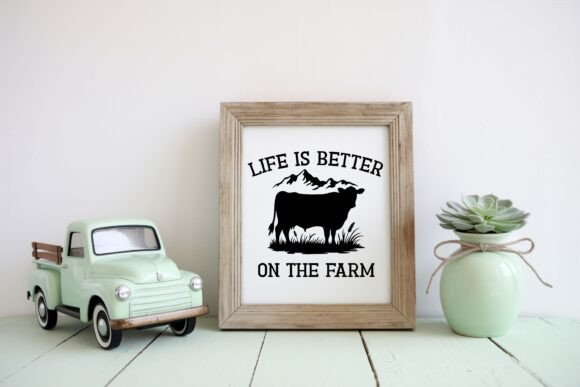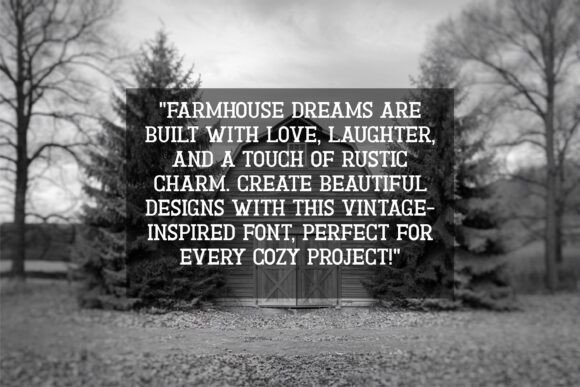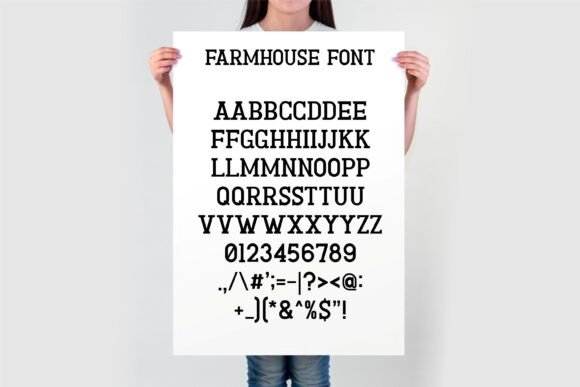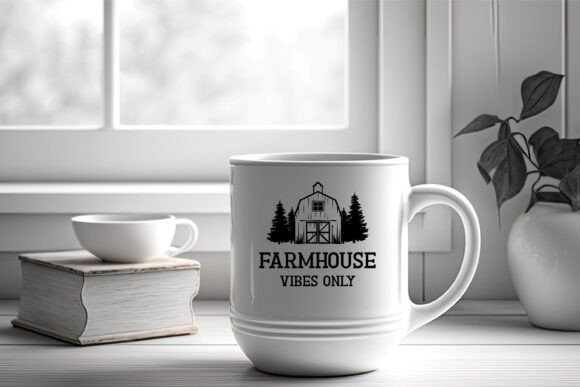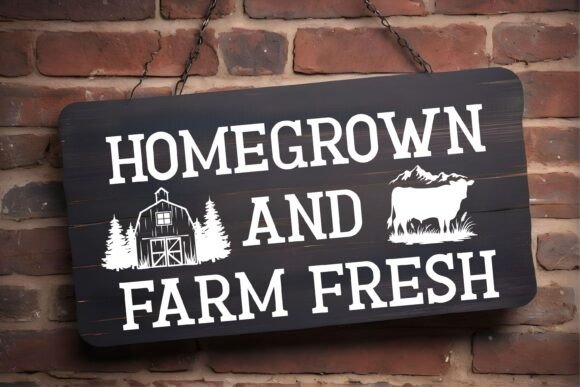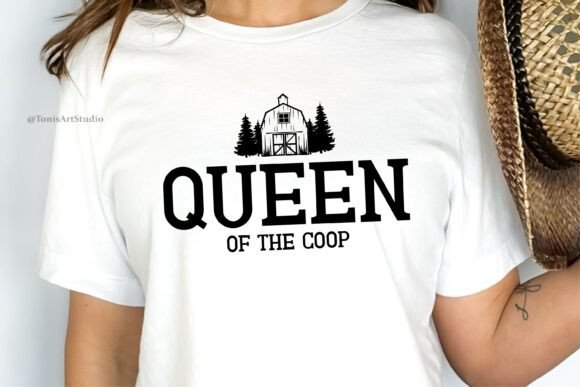
Introducing Farmhouse Vintage Font: A Timeless Rustic Serif Font
Are you looking for a font that exudes rustic charm and timeless elegance? Look no further than the Farmhouse Vintage Font! This beautiful font is perfect for designers and crafters who want to add a touch of country charm to their projects. In this article, we’ll take a closer look at the Farmhouse Vintage Font, its features, and the various ways you can use it to create stunning designs.
What is Farmhouse Vintage Font?
Farmhouse Vintage Font is a rustic serif font that is reminiscent of traditional farmhouse signs and vintage advertisements. Its classic design makes it perfect for a wide range of projects, from home decor to party decorations. The font is available in various formats, including OTF, TTF, SVG, DXF, EPS, and PDF, making it versatile and easy to use.
Key Features of Farmhouse Vintage Font
- Timeless Design: The Farmhouse Vintage Font features a classic design that is both rustic and elegant.
- Perfect for Various Projects: The Farmhouse Vintage Font is ideal for creating t-shirts, mugs, logos, posters, planner prints, birthday cards, wall decals, car decals, stickers, wedding invitations, birthday party decorations, iron-ons, print nâ cuts, and more!
Uses for Farmhouse Vintage Font
The Farmhouse Vintage Font is incredibly versatile and can be used for a wide range of projects, including:
- T-Shirts and Apparel: Create custom t-shirts, hoodies, and other apparel with the Farmhouse Vintage Font.
- Mugs and Drinkware: Add a touch of rustic charm to mugs, tumblers, and other drinkware.
- Signs and Posters: Create beautiful signs and posters for your home, business, or events.
- Party Decorations: Use the Farmhouse Vintage Font to create custom party decorations, such as banners, garlands, and more.
- Wedding Invitations: Add a touch of elegance to your wedding invitations and save-the-date cards.
- Iron-Ons and Vinyl Decals: Create custom iron-ons and vinyl decals for your favorite clothing and accessories.
Why Choose Farmhouse Vintage Font?
There are many reasons why you should choose the Farmhouse Vintage Font for your next project. Here are just a few:
- Unique and Timeless Design: The Farmhouse Vintage Font features a unique and timeless design that’s sure to stand out.
- Versatile: The font can be used for a wide range of projects, from home decor to party decorations.
In conclusion, the Farmhouse Vintage Font is a beautiful and versatile font that’s perfect for designers and crafters who want to add a touch of rustic charm to their projects. With its timeless design, multiple formats, and ease of use, this font is sure to become a favorite in your collection. Whether you’re creating t-shirts, mugs, signs, or party decorations, the Farmhouse Vintage Font is the perfect choice.